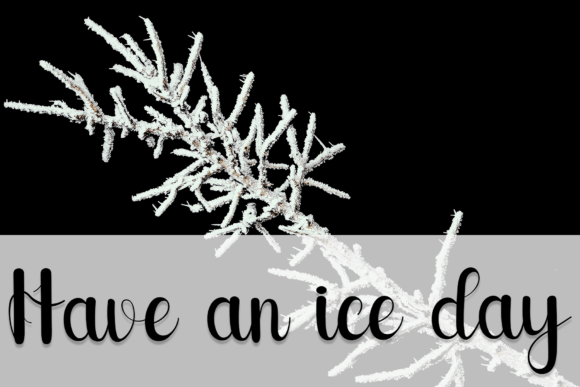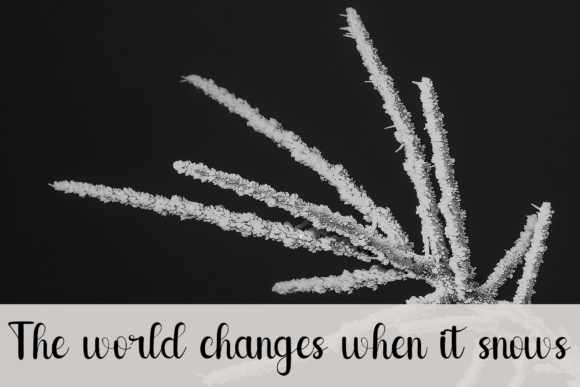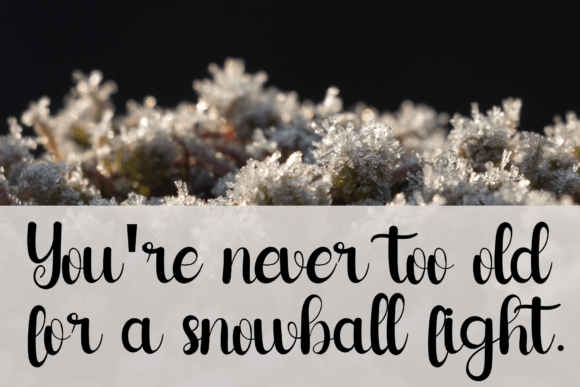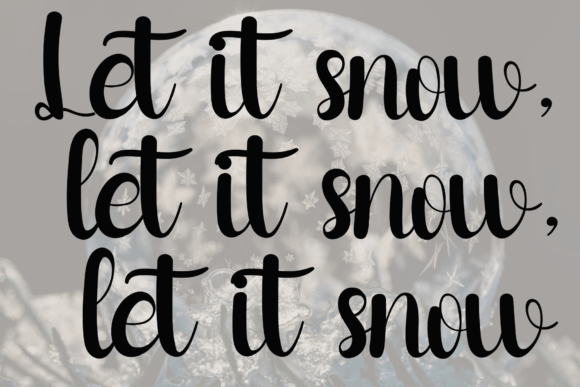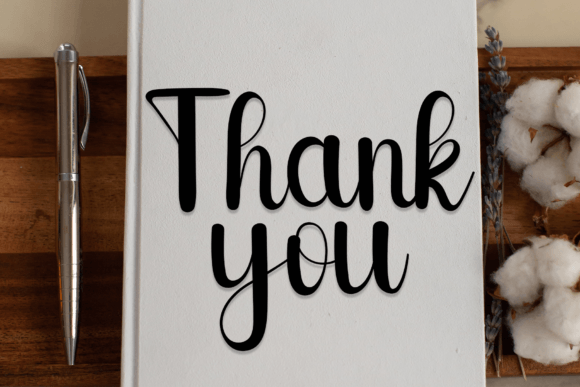
Introduction to Snow Beautiful Font
Snow Beautiful is an exquisite handwritten font, masterfully designed to become a true favorite.
Key Features of Snow Beautiful Font